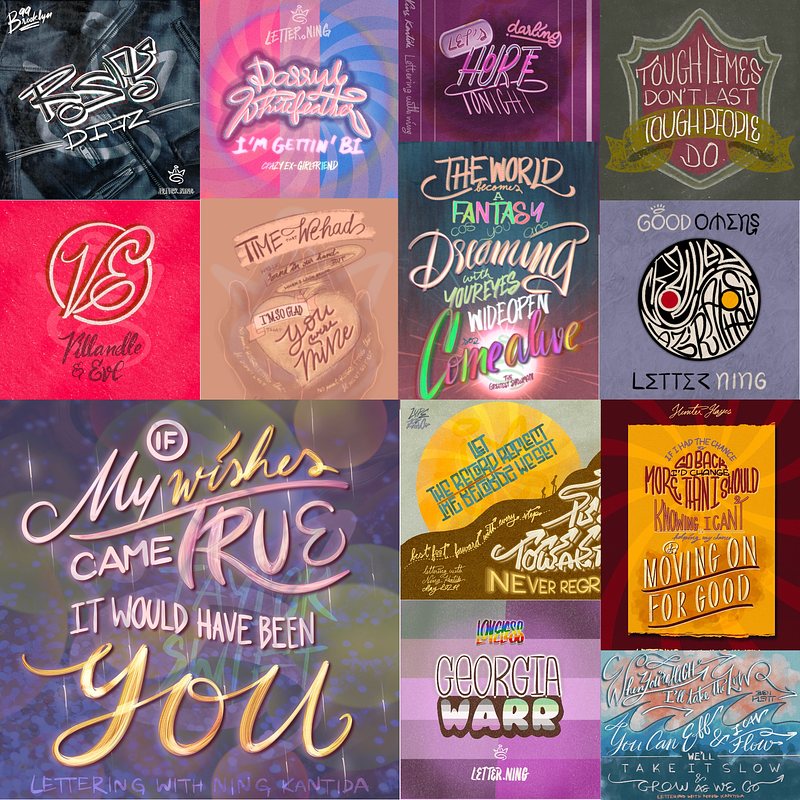
Hi! I’m Ning. If you’ve been following me, you might have come across some, or hopefully all, of my lettering pieces over the past two months.
Long story short, I kicked off my lettering journey in April with almost zero knowledge of design and lettering—just a pure love for typography. I assigned myself daily lyrics lettering in May and daily LGBTQIA+ character name lettering last month.
Here's what I've learned after two months:
Lettering is More Than Letters: It's the whole graphic design process. You need to convey the message through colors, composition, contrast, and the personality of each letter and element. So, I had to learn those design basics and principles on top of lettering. Especially composition—it matters more than I initially thought; it often makes or breaks the whole design.
Details Matter: Every little detail counts. It’s not just what you see but also what you unconsciously perceive. It's all about filling up and balancing out the negative space between letters.
Type Design Sets the Vibe: The typography designs you choose impacts the entire feel. Testing out various styles and combinations is crucial for finding the right vibe for each piece.
Idea Selection is Key: Coming up with ideas is great, but what's more important is choosing one that **fits your time, resources, and brief**. Using tools and techniques that match your schedule and planned effort is key.
Trust Your Instincts: You can have a design in mind before starting, but you should trust your gut to try different designs during the process.
Templates Are Your Friends: Have some templates stocked in your mind and toolbox. You can't wing it and start from scratch every time; humans (both designers and audiences) understand messages through familiar belief systems, whether they realize them or not.
Courses Help: Taking courses helps you understand theory and techniques, making it easier to come up with more good ideas. I’d be doing the same lettering techniques for two months if I hadn’t expanded my knowledge.
Perfection is Impossible: You won't create a masterpiece every time. Instead of beating yourself up, evaluate and take note of areas for improvement so you can understand how great work comes about.
However, there are also downsides to trying to post new lettering every day:
Daily Lettering Disrupted My Life Rhythm: The daily grind of lettering has taken a toll on my routine. Spending at least 4 hours daily on ideas, conceptualizing, experimenting, executing, and writing about lettering consumed my time and mental capacity. I had no room for anything else.
Getting it done daily is possible; making it great daily is not: Time constraints forced me to stop experimenting and finalizing too early. I saw more flaws than finesse and had to turn a blind eye just to post on time.
No Time for Other Writing: I couldn't write about anything else because lettering occupied my mind all the time. When I wasn’t doing lettering, I was taking courses about it!
Procreate Layer Limits are Annoying: Often had to call it a day early because duplicating files for a few more steps was frustrating.
Storage Limits are Even More Annoying: Lettering resources and files are really large; I had to delete stuff from my iPad every day. I'm dying to get a new iPad when I have enough budget!
Moving forward…
I plan to switch to a weekly lettering schedule to allow for more quality work and personal care. This should give me more freedom to create great work while also having time to read, write, and take care of myself and others.
I’m also going to revisit my speed-run courses from the past two months and make detailed notes. This will help me build frameworks for better and faster designs.
Despite the challenges, I value the knowledge gained and look forward to continuing my lettering journey at a more sustainable pace. But honestly, I don’t think I can make a career out of this—it's still definitely worth knowing just in case.